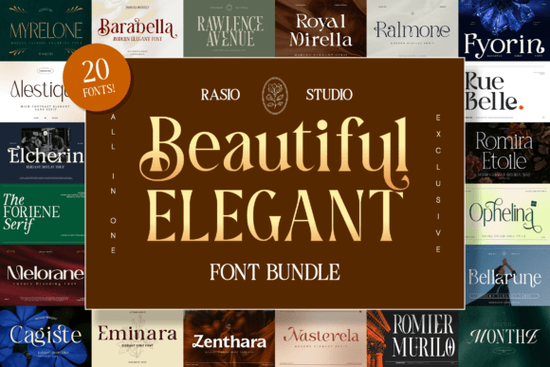
If you're working on a project that calls for sophistication think wedding invitations, luxury packaging, high-end branding, or even elegant social media graphics you know the right font can make all the difference. The Beautiful Elegant Font bundle by Rasio Studio brings together 20 typefaces that balance grace and versatility without sacrificing readability or style.
What sets this collection apart isn’t just how it looks, but how well it works across different creative needs. Whether you lean toward delicate scripts for hand-lettered charm or refined serifs for editorial polish, each font in the bundle was crafted with intentional details: subtle contrast, flowing curves, and letterforms that feel both classic and contemporary.
Who is this font bundle best for?
This bundle shines for designers and small business owners who need reliable, high-quality typography without spending hours hunting for the perfect match. Print-on-demand sellers creating premium mugs, journals, or apparel will appreciate the range of weights and styles. Crafters making greeting cards or scrapbook layouts can mix and match fonts to add visual interest while keeping a cohesive look. Even hobbyists experimenting with Canva or Adobe Express will find these fonts easy to use and instantly elevate their output.
How do these fonts perform in real projects?
Each typeface in the bundle includes standard characters, numerals, and punctuation, with many offering extended language support and stylistic alternates. That means you can create bilingual wedding stationery or multilingual product labels without switching fonts mid-project.
For example, pairing one of the script fonts like Elarose with a clean serif such as Montclair gives you headline-and-body contrast that feels intentional, not cluttered. Other standout fonts include Lavanderia for vintage-inspired flair and Seraphina for modern calligraphy effects.
Will these fonts slow down my workflow?
Because the bundle maintains a consistent design language, you won’t waste time testing dozens of mismatched fonts. Instead, you can confidently combine any two from the set and still achieve a polished result. This cohesion is especially helpful when building brand guidelines or designing multi-page documents like lookbooks or catalogs.
Is “elegant” just another word for “hard to read”?
Not here. While some decorative fonts sacrifice legibility for style, the Beautiful Elegant Font bundle prioritizes clarity even in its most ornate scripts. Uppercase letters are spaced generously, lowercase forms retain familiar structures, and x-heights are balanced to ensure readability at smaller sizes.
That said, as with any display font, it’s best used thoughtfully: scripts work beautifully for headlines, logos, or short phrases, while the serif options handle body text or captions with ease. Avoid using ultra-thin weights in tiny print sizes or low-resolution digital displays, but for most standard applications from business cards to Instagram stories they perform reliably.